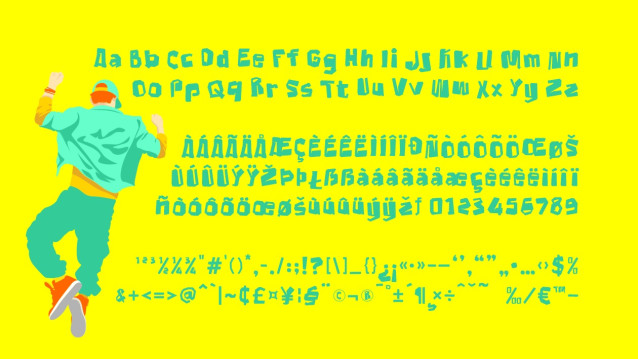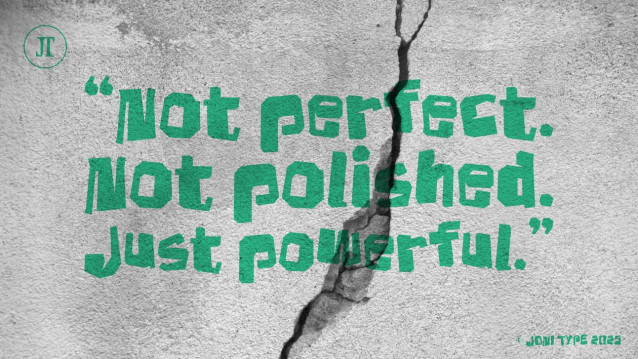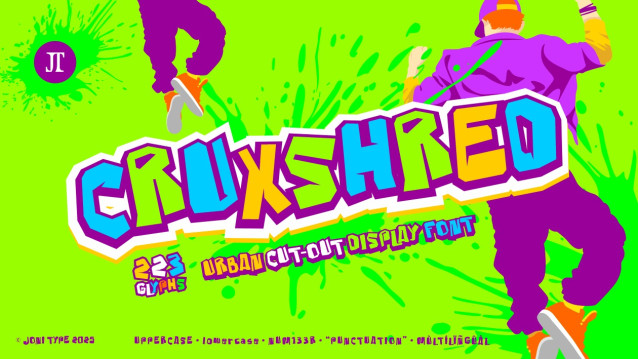
Cruxshred Display Font
Cruxshred Display Font is a bold, edgy display font with a raw, hand-cut vibe that instantly grabs attention. Its uneven, jagged forms create a sense of rebellion and energy, making it perfect for designs that demand attitude and impact. Whether you’re working on posters, streetwear branding, album covers, or social media graphics, Cruxshred adds a unique punch of personality.
With its playful yet chaotic style, Cruxshred brings a DIY spirit to your typography — loud, unapologetic, and impossible to ignore.